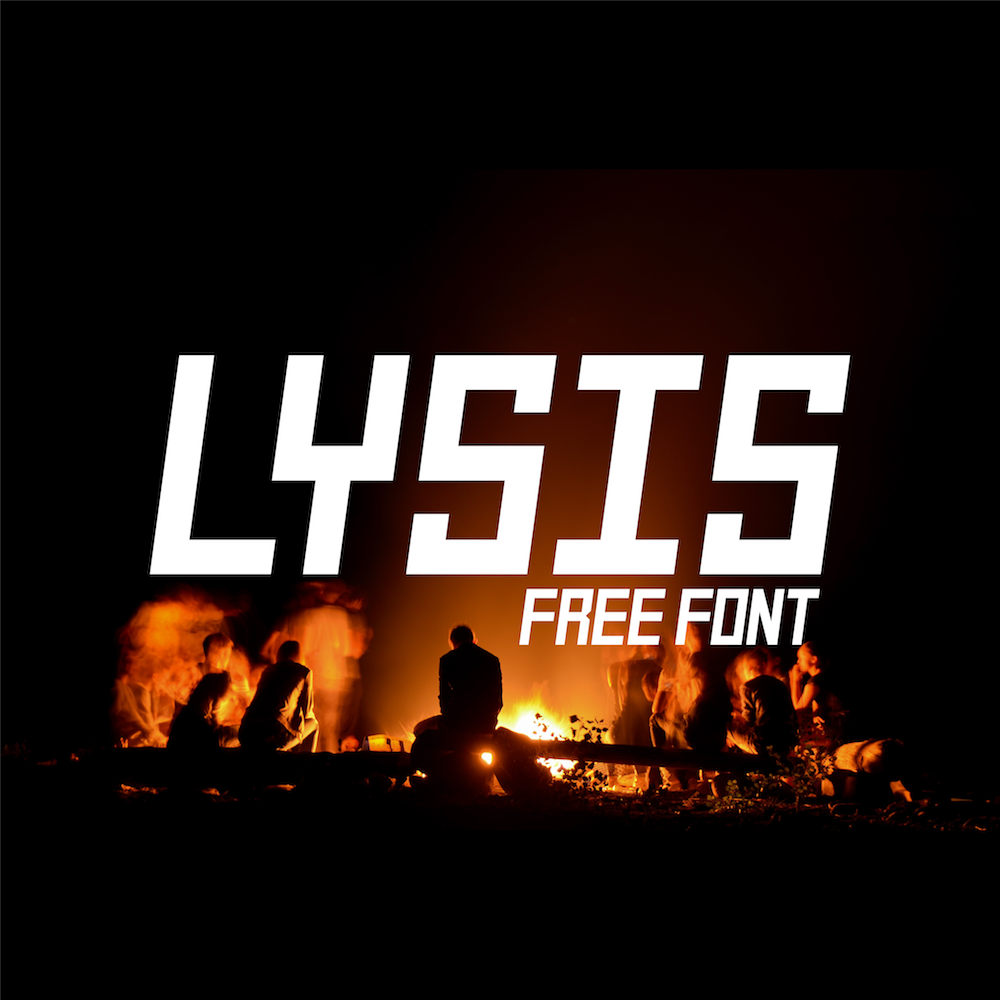
Lysis Free Font
Lysis by Nathan Dawdy is a free font created to meet a list of challenges. Can a practical font (meaning legible, usable) be created which has characters that each occupy the same footprint, be geometric, and in fact, be built on an angled grid?
This release, containing only uppercase characters, numbers, and some symbols is the first of a series.